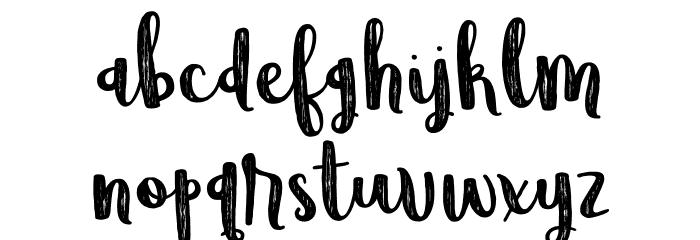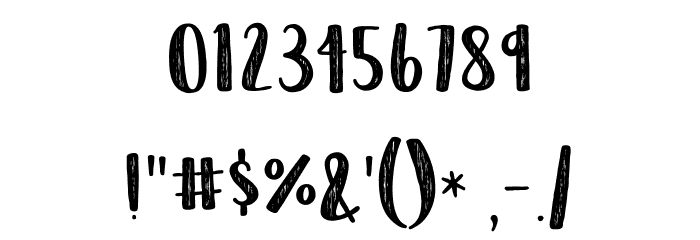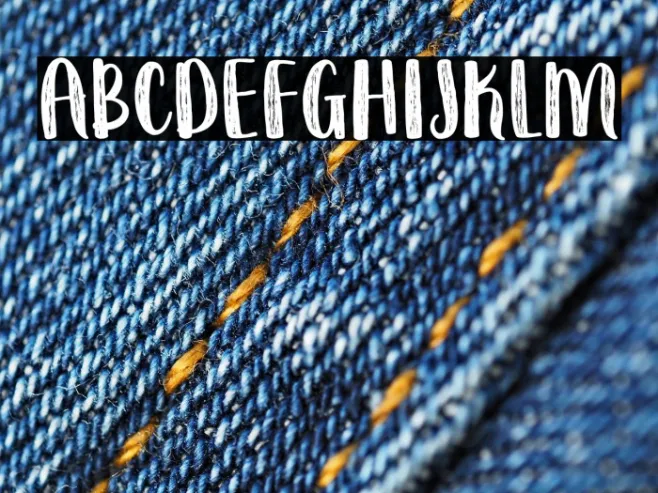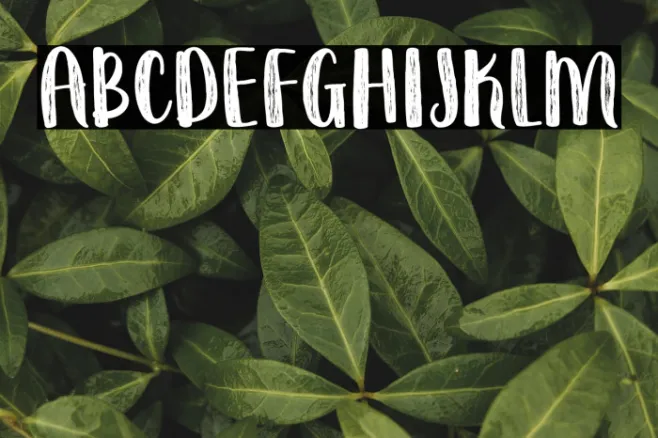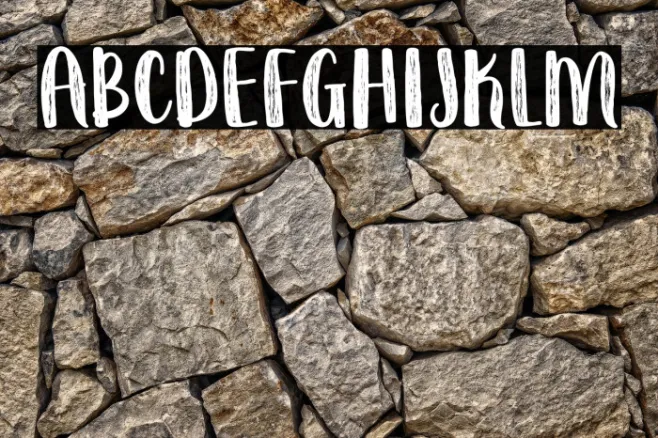
Wildemount Rough Font
This font features a rough, hand-drawn aesthetic with a playful and artistic flair. The letters are bold and slightly irregular, giving them a unique, textured appearance that mimics the look of brush strokes or chalk. The uppercase and lowercase letters maintain a consistent style, with rounded edges and a casual, informal feel. The numerals and special characters are equally expressive, maintaining the same handcrafted look. This font is perfect for projects that require a personal touch or a creative, artistic vibe.
A bold, hand-drawn font with a textured, artistic style.
- Font: Wildemount Rough
- Proposed Projects: Ideal for creative projects such as posters, invitations, branding, and social media graphics that require a personal and artistic touch.